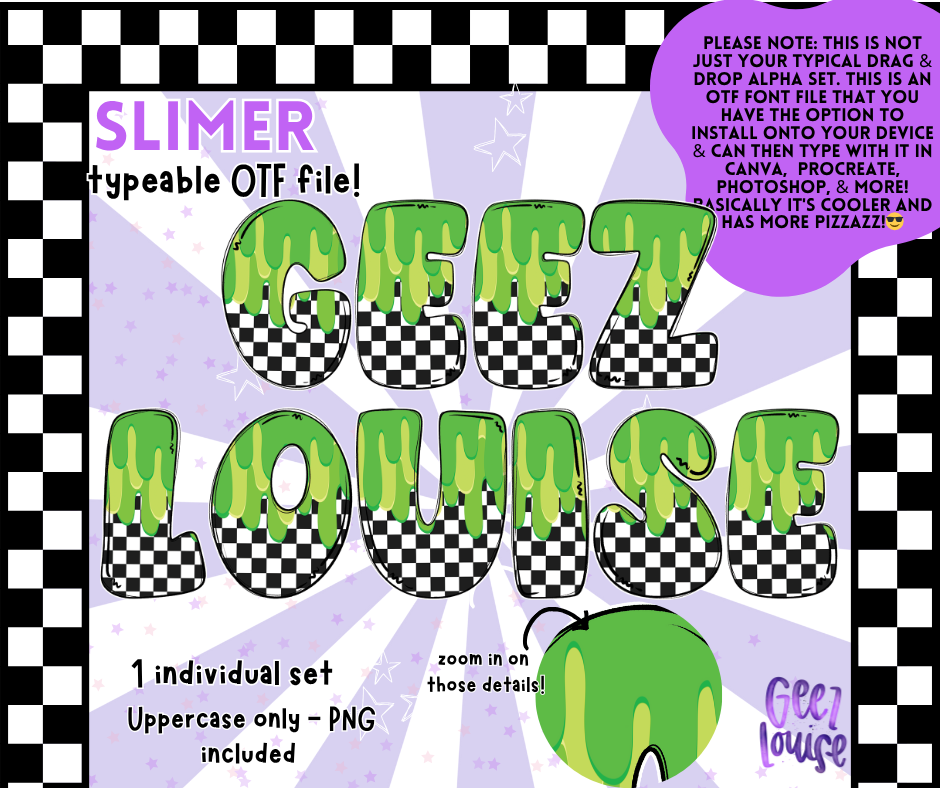
Slimer Alpha – Green Slime Checkered OTF Font & PNG Set
💚 Drip it like it’s hot! The Slimer Alpha is here to add some oozy, gooey fun to your designs. Featuring bold black-and-white checkers dripping with neon green slime, this typeable OTF font + PNG set is perfect for spooky season, slime parties, and retro-horror vibes.
Great for Halloween designs, gamer graphics, merch, and projects that need a slimy twist.